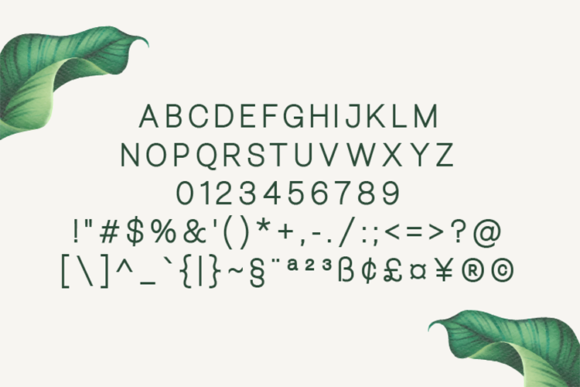
HomeSans Serif FontsBellezza Medium Font Sans Serif Fonts Bellezza Medium Font FacebookTwitterPinterestWhatsApp Bellezza Medium Fonts 1 of 2 About Bellezza Medium Font Bellezza is a modern sans serif with a geometric touch. It’s perfectly suited for graphic design and for display purposes. DOWNLOAD NOW People also explored Sweet Milk Font Green Fuz Bright Hunter Font Beautifull Sunflower Font Mama The King of Romance Font Hello Pastel Font Semanko Font Amazing Font 226 0 TagsBellezza Medium Font Previous articleBellezza Semi-Bold FontNext articleBellezza Font LEAVE A REPLY Cancel reply Comment: Please enter your comment! Name:* Please enter your name here Email:* You have entered an incorrect email address! Please enter your email address here Website: Save my name, email, and website in this browser for the next time I comment. Personal Use Free Charletto Personal Use Free Read more about this font Hallo Betty Personal Use Free Read more about this font Made of Concrete Personal Use Free Read more about this font Entin Personal Use Free Read more about this font BLOG Where to Buy American Fonts Online in 2024 Where to Buy American Fonts Online: The Ultimate Guide for 2024 Looking for the perfect American font to elevate your design projects? You're in the... Best Fonts for YouTube Videos: Make Your Thumbnails Stand Out Elegant Wedding Invitation Fonts – Handwritten & Script Fonts Free Fonts Risk: Why Free Fonts Can Be Dangerous for Designers